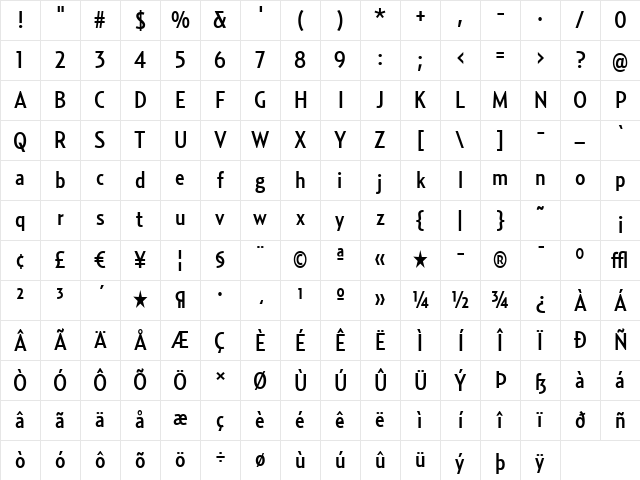
RelayCond-Medium Regular
Designer: Cyrus Highsmith
Design Context for RelayCond-Medium
RelayCond-Medium is a composed and adaptable typeface that performs quietly and consistently across a wide range of design contexts. Its narrow stance lets it pack a punch even in space-constrained designs.
Pro Tip: Use RelayCond-Medium in both headline and body roles to test its range before committing to a single application.